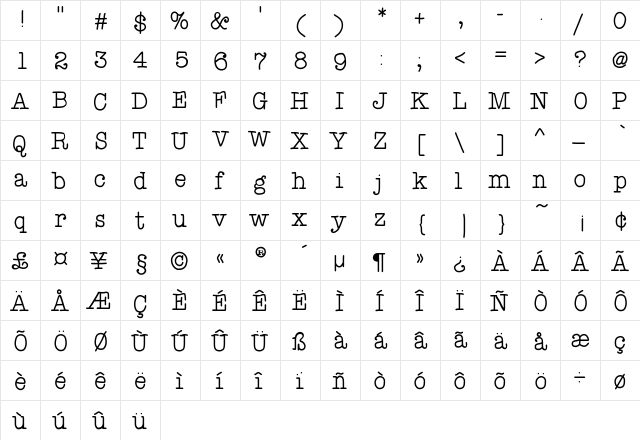
ATypewriterForMe Medium
Design Context for ATypewriterForMe Typeface
ATypewriterForMe brings the precise, column-aligned rhythm of monospaced typography to designs that value technical clarity and systematic order.
A natural fit for code editors, technical documentation, developer-focused branding, and terminal-inspired UI.
Pro Tip: Pair ATypewriterForMe with a proportional sans for UI contexts where code-style labels and regular body copy need to coexist.